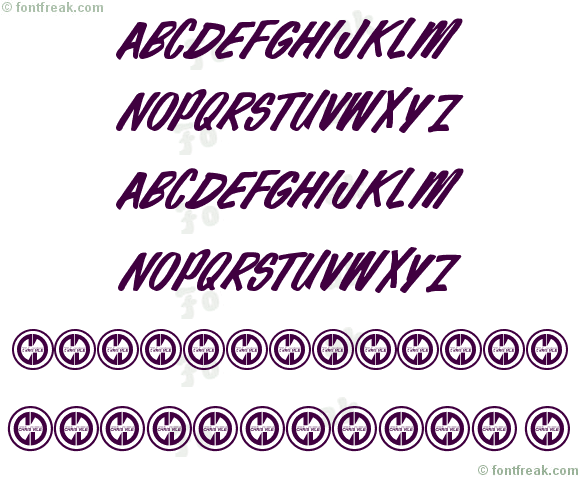
The Quick Marker
About The Quick Marker
The Quick Marker font by Chris Vile is a captivating handwritten typeface that embodies a spontaneous and playful spirit. Designed as a display font, it features bold, expressive strokes that mimic the fluidity of marker pen writing. The stroke weight is predominantly consistent, but it varies slightly, adding a dynamic quality to the characters. This font showcases a relaxed and informal style, making it perfect for casual applications. The spacing between letters is well-balanced, ensuring readability while retaining its artistic flair.
This font shines in various creative contexts. It is particularly well-suited for designing eye-catching wedding invitations, where a personal touch is essential. Its playful nature also makes it an excellent choice for crafting vibrant posters for events or movie releases, allowing designers to capture attention effortlessly. Restaurant menus can benefit from the font's engaging style, offering a warm and inviting feel that enhances the dining experience. Additionally, content creators can use The Quick Marker font for social media graphics and marketing materials, as it conveys a friendly and approachable vibe.
What truly sets The Quick Marker font apart is its unique ability to blend professionalism with an artistic touch. It stands out in a crowded market of typefaces by offering a combination of whimsy and clarity, making it an ideal choice for anyone looking to add a distinctive flair to their designs. Experience the charm and creativity with The Quick Marker font free download, and let your projects come alive.